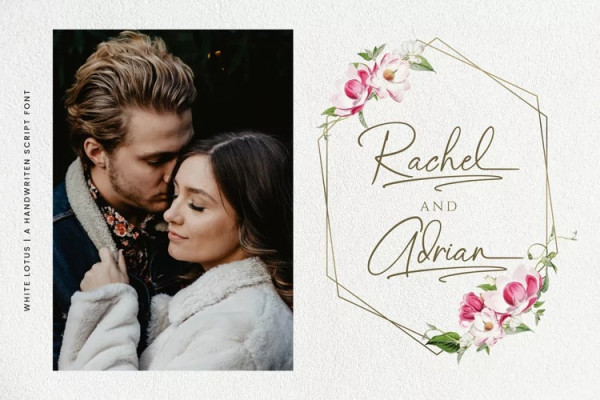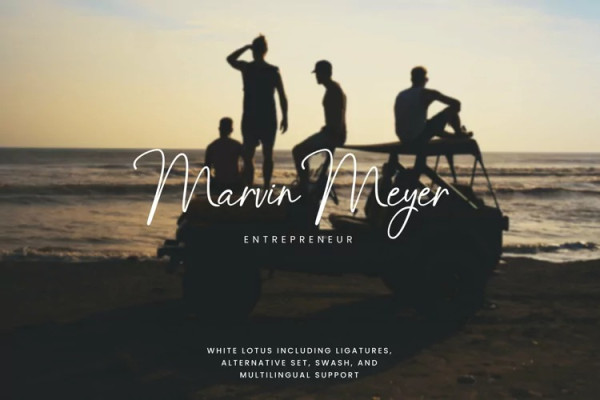
White Lotus Font
White Lotus Font is stylish Signature font. suitable for wedding invitations, stationery, photography, social media posts, product packaging, greeting cards, and much more.